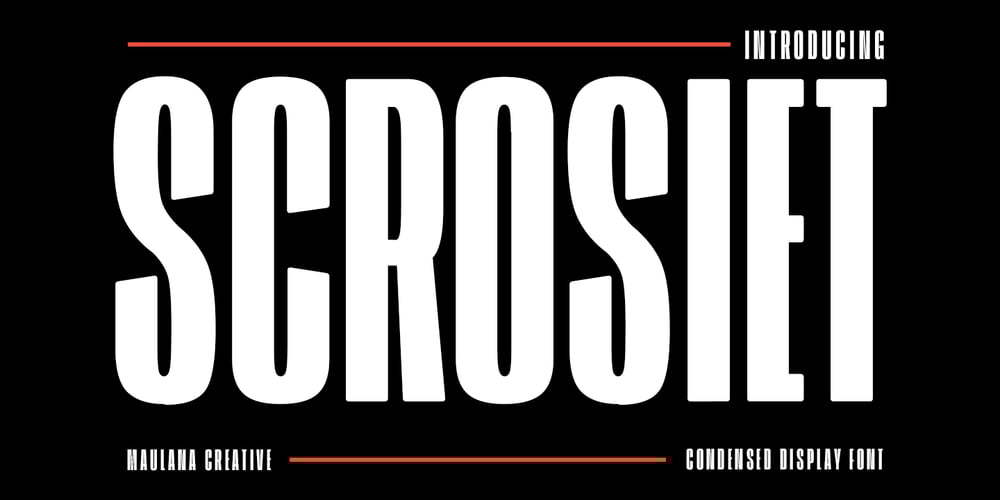
Scrosiet
Scrosiet font
Scrosiet Font Family was designed by Gilang Maulana and published by Maulana Creative. Scrosiet contains 1 styles and family package options. Scorsiet is a modern condensed font. With bold low contrast stroke, fun character with a bit of ligatures and alternates. To give you an extra creative work. Scorsiet font support multilingual more than 100+ language. This font is good for logo design, Social media, Movie Titles, Books Titles, a short text even a long text letter and good for your secondary text font with sans or serif. Make a stunning work with Scorsiet font. Cheers, Maulana Creative